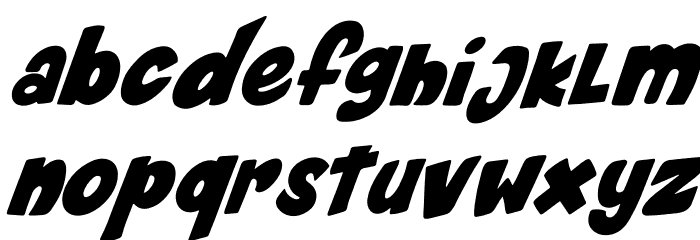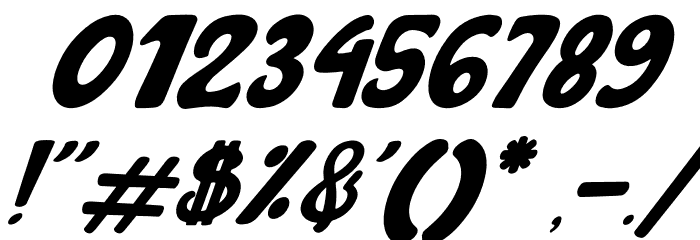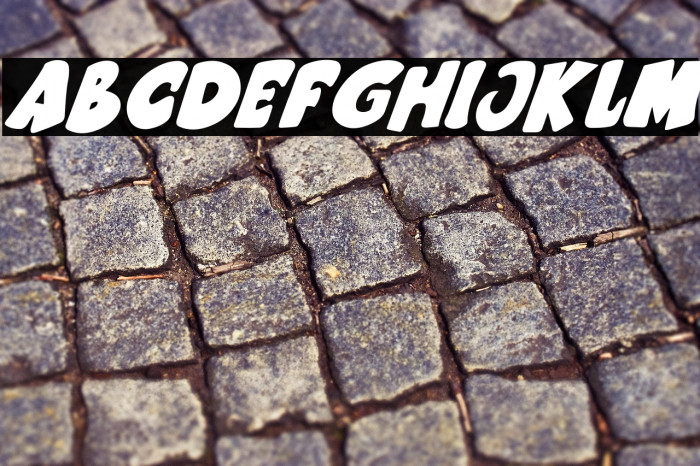
Cartoon cookies Tilted Font
This playful and bold font features thick, rounded characters with a slightly tilted orientation, giving it a dynamic and energetic appearance. The letters are designed with a cartoonish flair, making them ideal for projects that require a fun and informal touch. The strokes are consistent in thickness, contributing to a cohesive and balanced look across all characters. The font includes a full set of uppercase and lowercase letters, numbers, and a variety of special characters, ensuring versatility in use. Its whimsical style is perfect for capturing attention and conveying a sense of joy and creativity.
A bold, cartoonish font with rounded, tilted characters for a playful look.
- Font: Cartoon cookies Tilted
- Proposed Projects: Ideal for children's books, comic strips, playful branding, and party invitations.
- Overall Style: Playful, Cartoonish